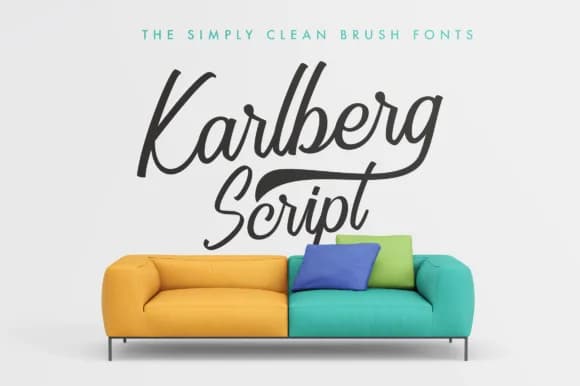
Karlberg by Adam Fathony is a refined calligraphic script that brings distinctive elegance to sophisticated design work. Built with a 45-degree brush technique, this font maintains beautifully consistent, fluid strokes that convey premium quality across any application. The sleek letterforms showcase careful craftsmanship, making them ideally suited for projects where polished calligraphic aesthetics matter.
This script particularly shines for luxury wedding invitation suites, where its refined character establishes the tone for an elegant celebration. High-end cosmetics branding and boutique skincare packaging benefit from Karlberg's sophisticated presence, communicating artisanal quality to discerning consumers. Event invitations, formal stationery, and luxury product labels all come alive with this font's polished personality. The brush construction ensures reliable legibility even at smaller sizes, proving Karlberg's versatility across both intimate and expansive design applications.
Beyond traditional print work, this font excels for creating premium brand identities where the calligraphic touch reinforces exclusivity and craftsmanship. Whether designing upscale stationery suites, building sophisticated social media graphics for luxury brands, or developing artisanal product packaging that resonates with quality-conscious audiences, Karlberg delivers consistent visual impact. Its refined nature makes it a smart choice for professional designers who want to communicate elegance and attention to detail without resorting to dated script conventions. Get Karlberg on Creative Fabrica to bring refined calligraphic elegance to your next design project.
Karlberg Font is a script font that shines as a display or heading face. Pair it with a clean sans-serif or serif font for body text β the contrast creates a clear hierarchy while the two styles stay balanced and easy to read.
Karlberg Font
by Adam Fathony